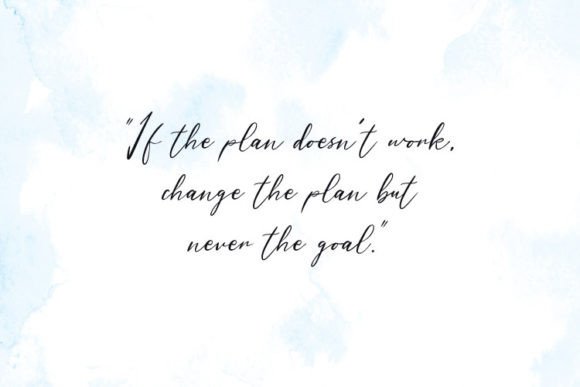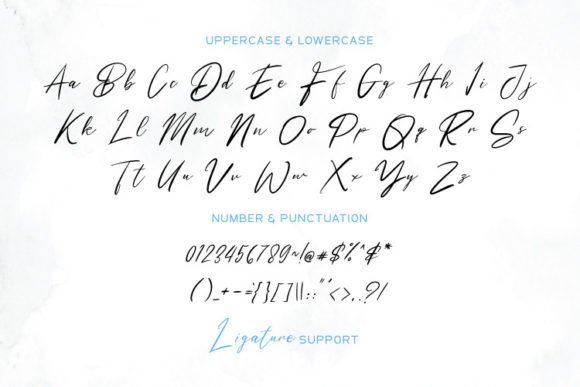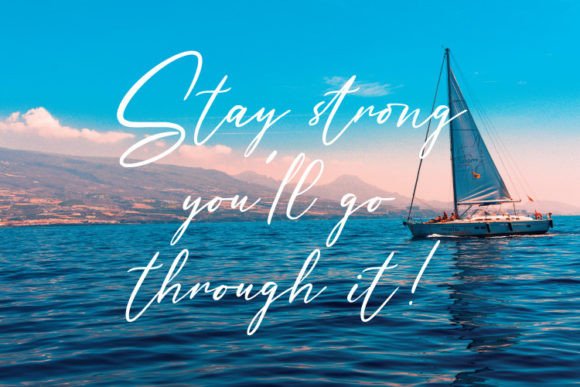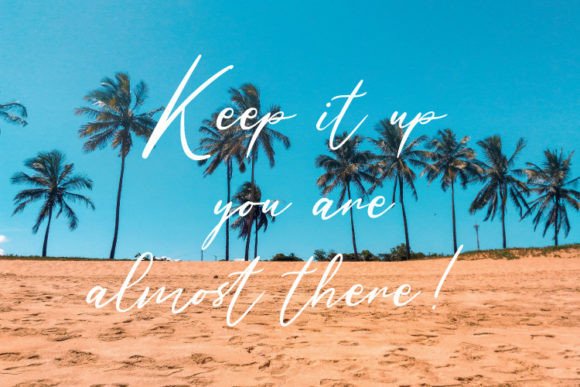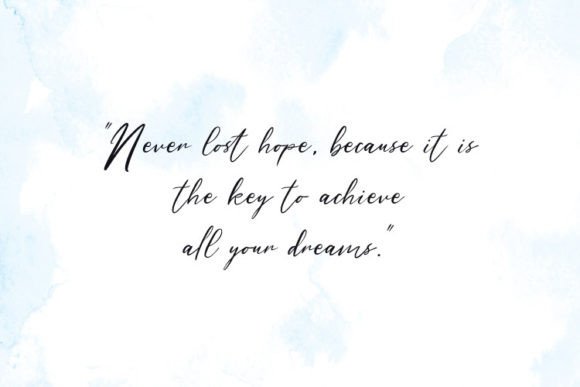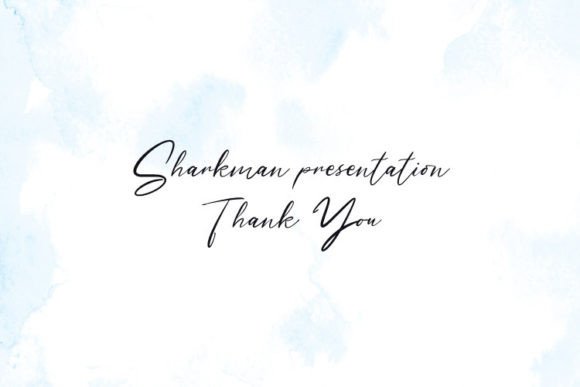
Introduction to Sharkman Font
Sharkman is a beautiful script font that features fun and quirky characters that look good in any design.
Add this font to your most creative ideas, and watch how it stands out .